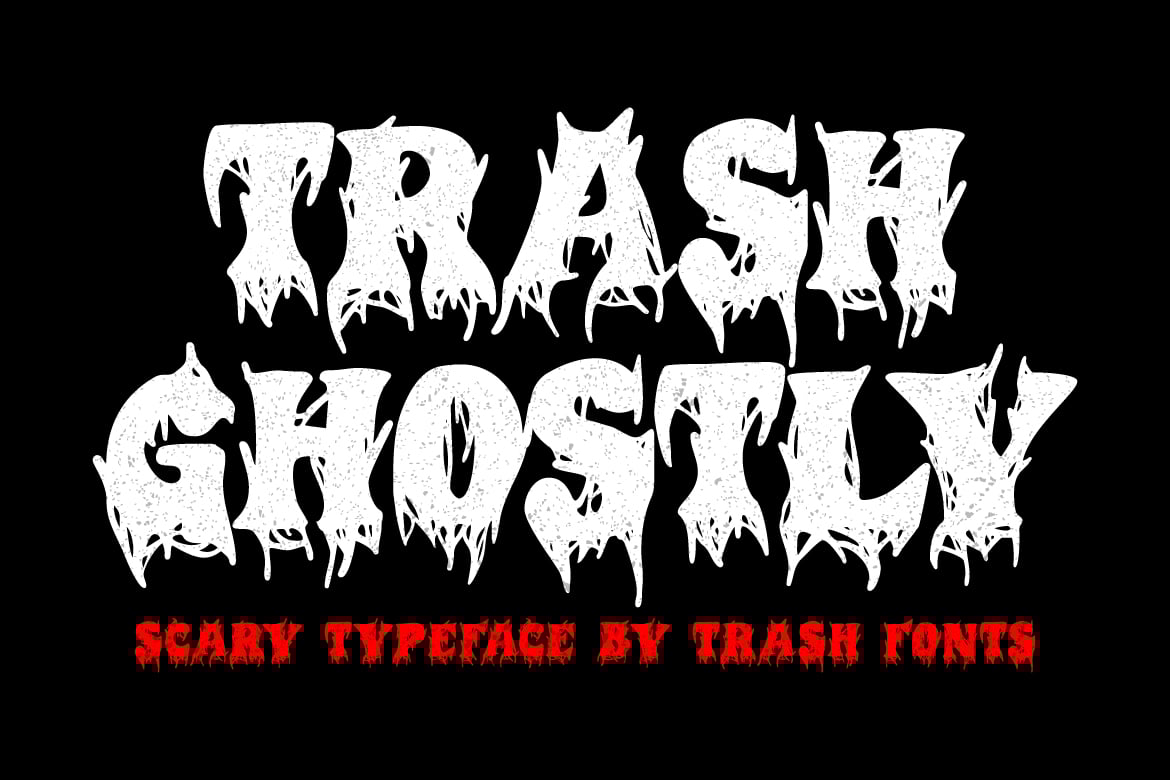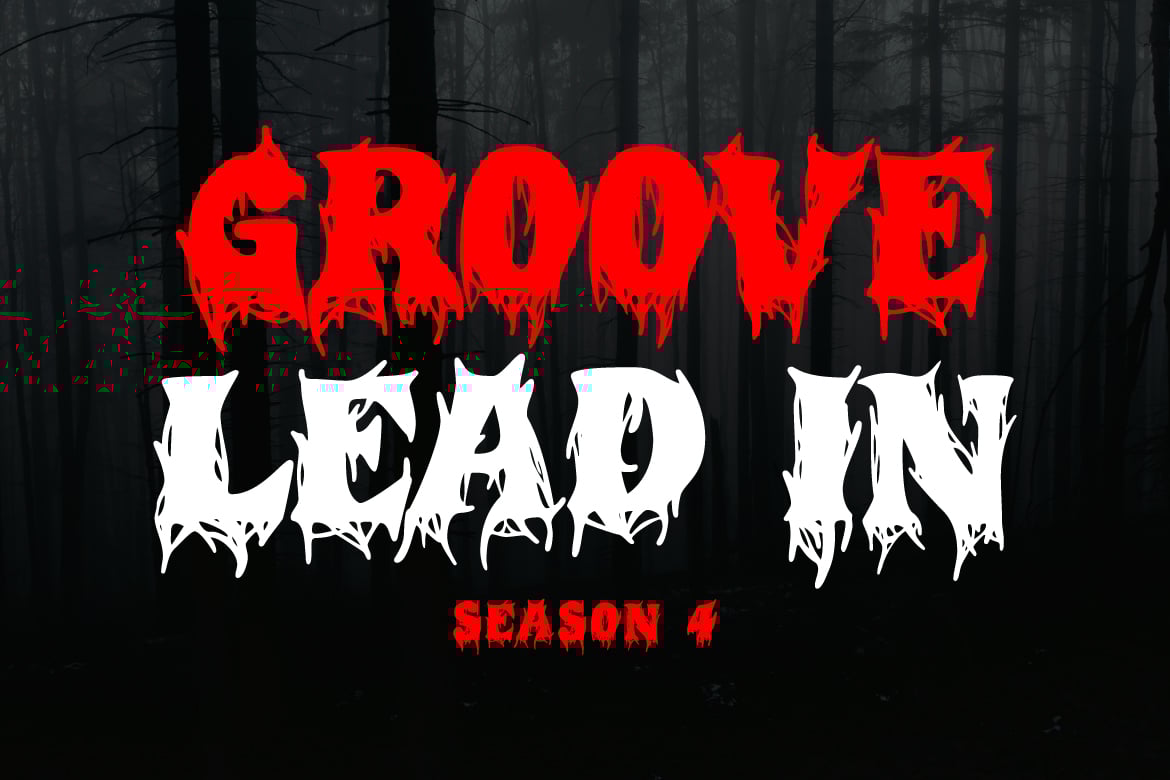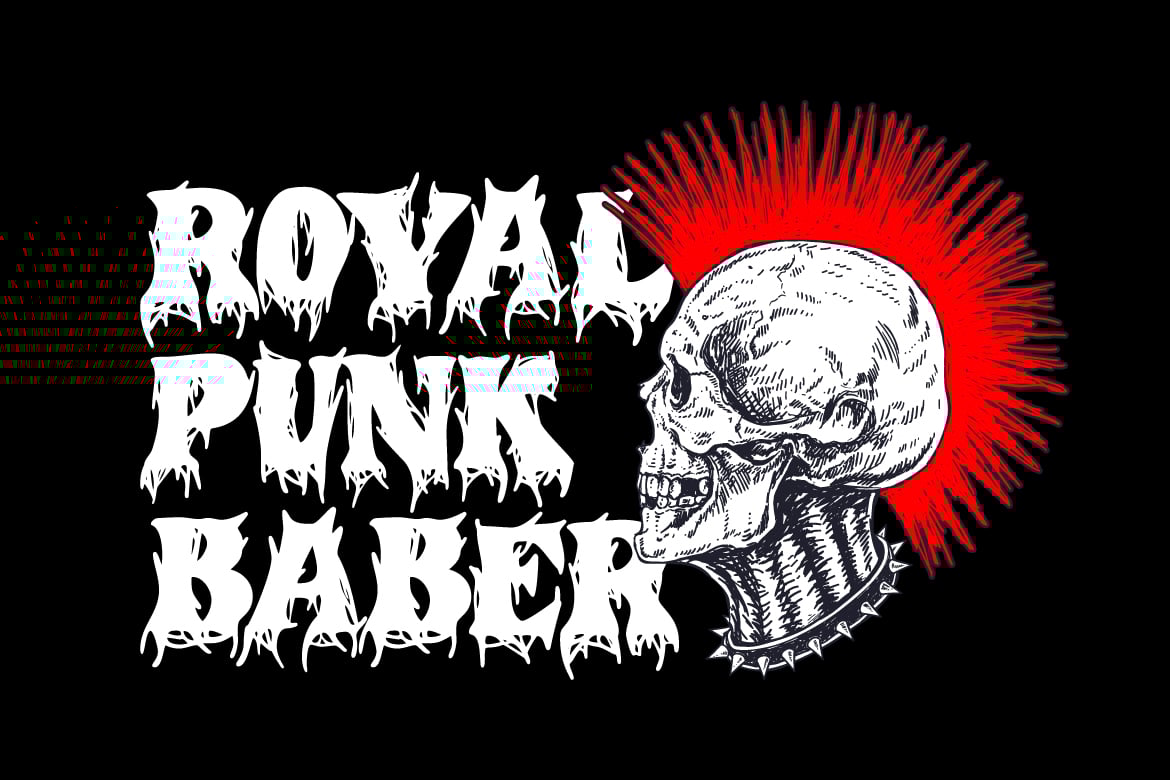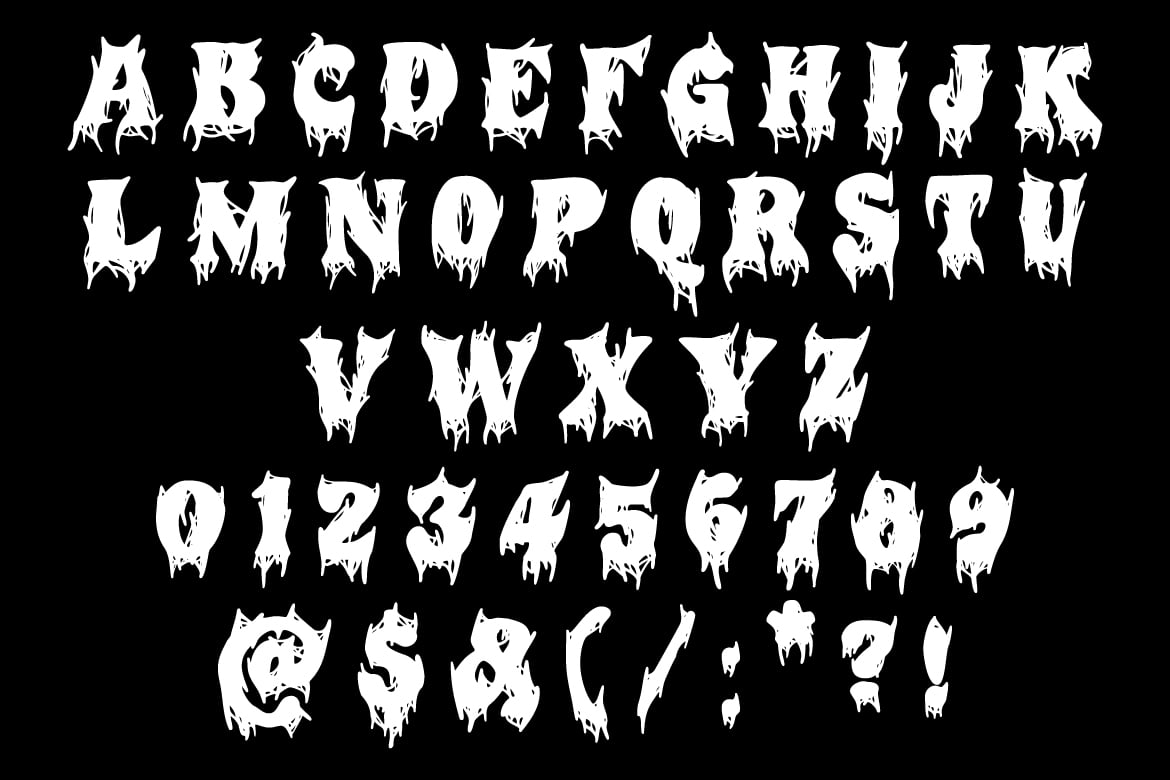
Trash Ghostly – Scary Font
Trash Ghostly by Trash Fonts
Presenting Trash Ghostly Font: perfect for a chilling and mysterious vibe in your designs. Its angular, spectral letterforms make it ideal for merchandise, logos, and posters that leave a haunting impression. Choose Trash Ghostly Font for an eerie intensity that lingers.
- Features: Uppercase, Lowercase, Numeral, Simple Punctuation & Multilingual.